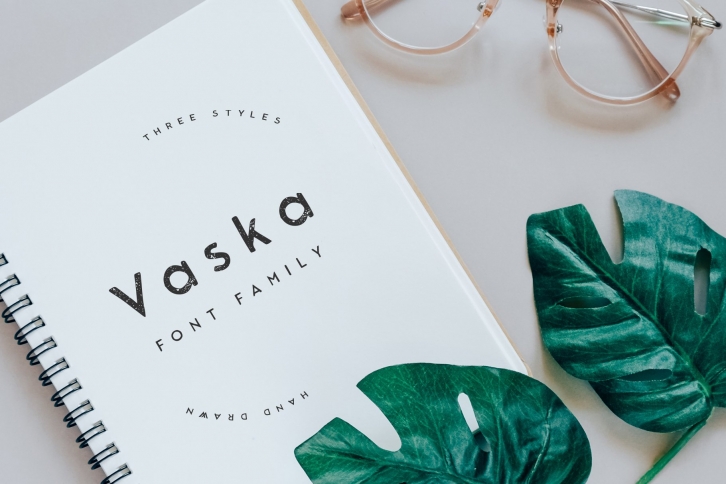
Vaska is a gorgeous font that was realeased on August 1, 2019. The font can be used in many style contexts and design environments. Perfect for invitations, magazines, websites, logos, and more! It was designed by Think Make Design and the file size is 1.81 MB. Thanks for checking out this font!